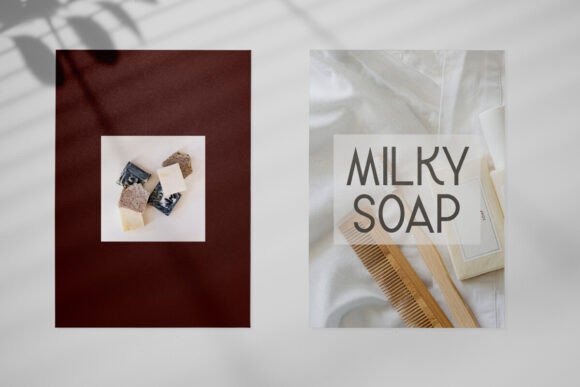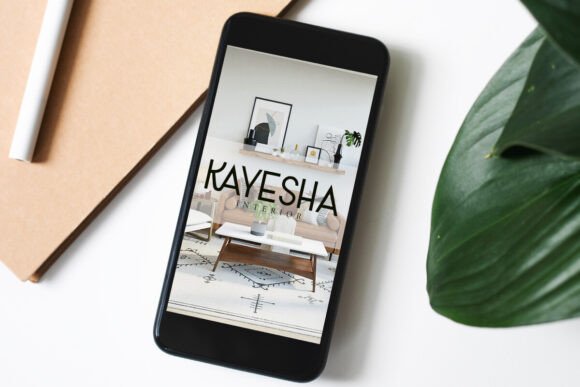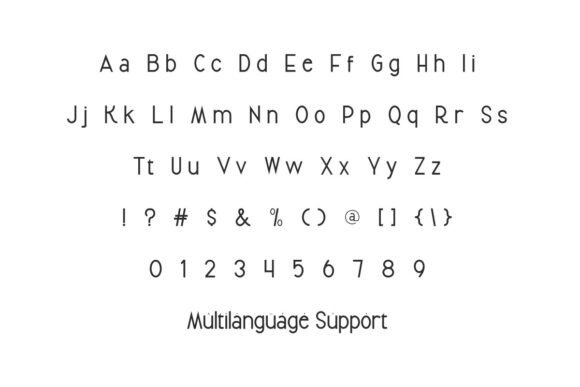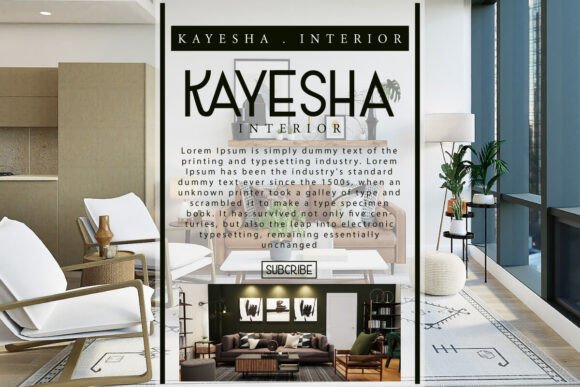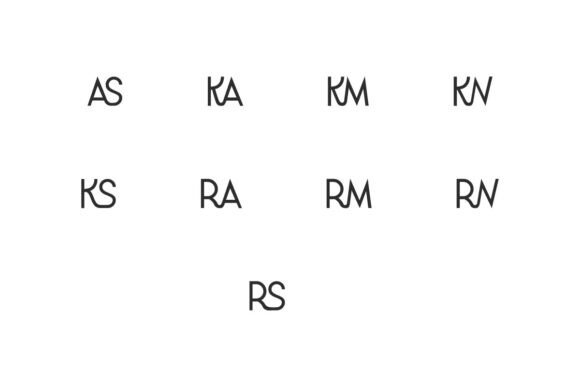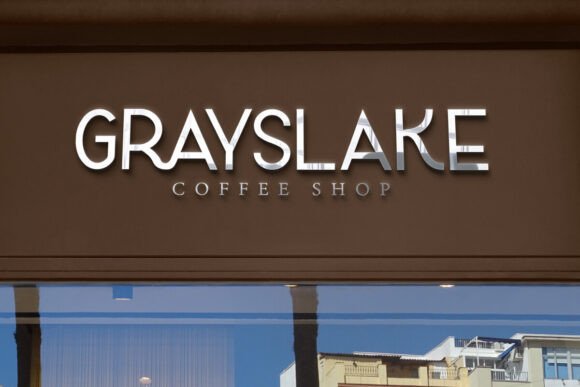
Grayslake Font: Elevate Your Designs with a Stylish and Modern Ligatured Sans Serif Display Font
Are you looking for a font that can add a touch of sophistication and elegance to your designs? Look no further than Grayslake Font, a stylish and modern ligatured sans serif display font that is sure to make your designs stand out. With its attractive style and versatility, Grayslake Font is perfect for a wide range of design projects, from apps and brochures to custom designs, gift boxes, invitations, labels, posters, product packaging, quotes, signage, stationery, websites, and more!
What is Grayslake Font?
Grayslake Font is a carefully crafted font that boasts a unique and stylish design. Its ligatured sans serif style gives it a modern and sleek look that is sure to grab attention. The font is designed to be highly legible, making it perfect for use in a variety of contexts, from digital displays to print materials.
Key Features of Grayslake Font
- Stylish and Modern Design: Grayslake Font features a stylish and modern design that is sure to elevate your designs.
- Ligatured Sans Serif Style: The font’s ligatured sans serif style gives it a unique and sophisticated look.
- Highly Legible: The font is designed to be highly legible, making it perfect for use in a variety of contexts.
- Versatile: Grayslake Font is perfect for a wide range of design projects, from apps and brochures to custom designs, gift boxes, invitations, labels, posters, product packaging, quotes, signage, stationery, websites, and more!
Why Choose Grayslake Font?
There are many reasons why Grayslake Font is the perfect choice for your design projects. Here are just a few:
- Adds a Touch of Sophistication: Grayslake Font adds a touch of sophistication and elegance to your designs, making them stand out from the crowd.
- Enhances Readability: The font’s highly legible design ensures that your text is easy to read, even in small sizes.
- Perfect for Branding: Grayslake Font is perfect for use in branding projects, such as logos, business cards, and letterheads.
Tips and Tricks for Getting the Most Out of Grayslake Font
Here are some tips and tricks for getting the most out of Grayslake Font:
- Experiment with Different Sizes: Experiment with different font sizes to find the perfect size for your design.
- Use Ligatures: Use the font’s ligatures to add a touch of elegance to your design.
- Pair with Other Fonts: Pair Grayslake Font with other fonts to create a unique and interesting design.
In conclusion, Grayslake Font is a stylish and modern ligatured sans serif display font that is perfect for a wide range of design projects. With its attractive style, versatility, and highly legible design, Grayslake Font is sure to elevate your designs and make them stand out. Whether you’re a designer or crafter, Grayslake Font is a great choice for any project.